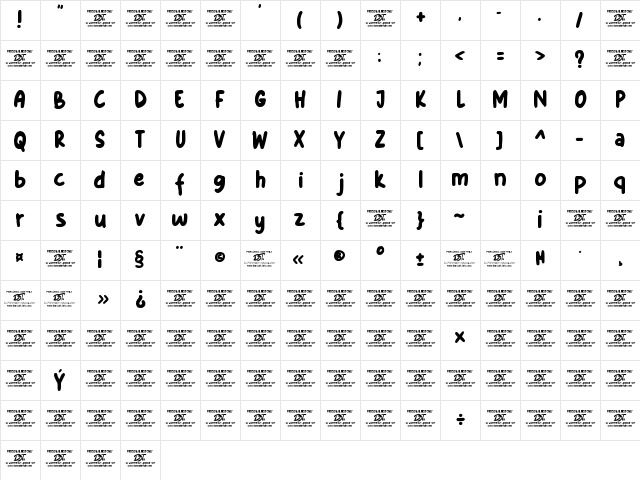
Baby Kimo Regular Free Font
Baby Kimo Regular
Designer: Toni Dzulham
Design Context for Baby Kimo
Baby Kimo is a composed and adaptable typeface that performs quietly and consistently across a wide range of design contexts.